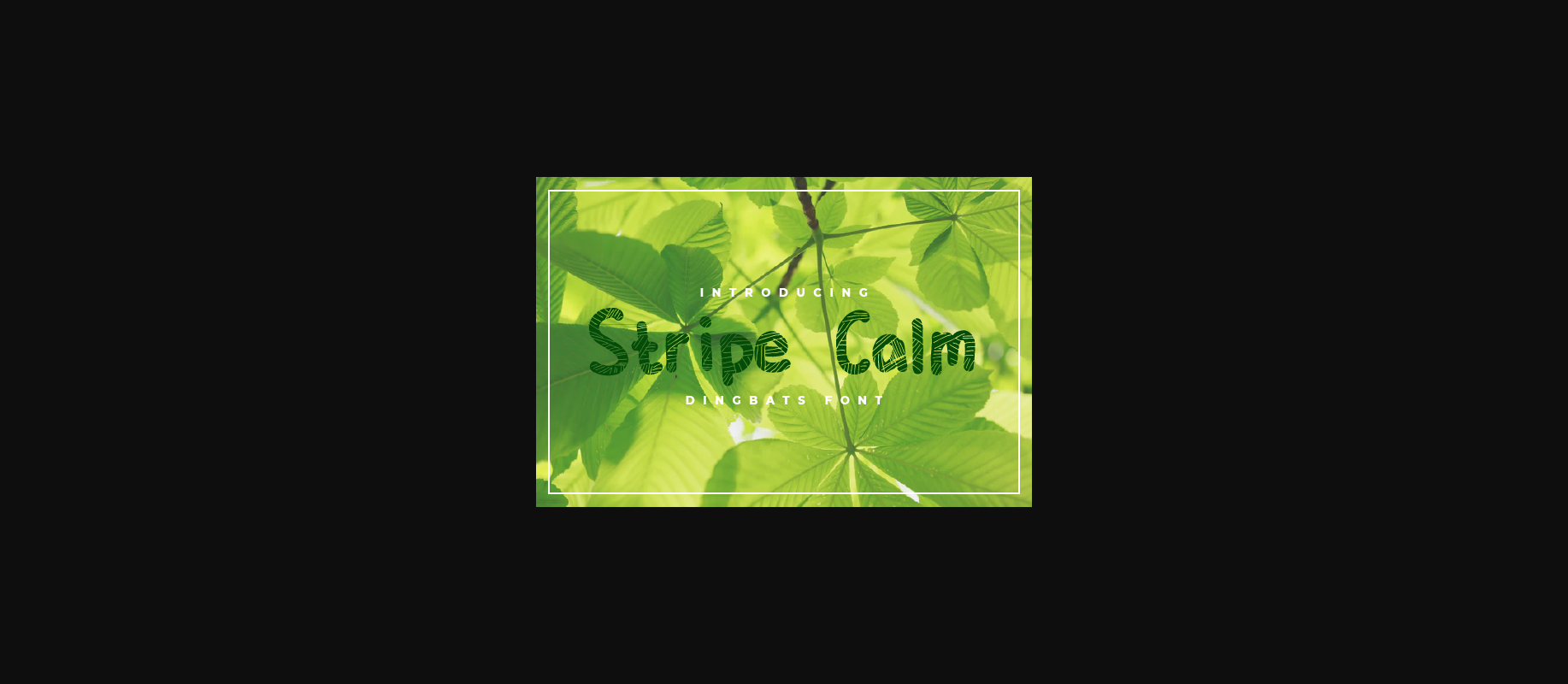
Stripe Calm Font
About Stripe Calm Font
Stripe Calm is a unique and interesting decorative font. Get creative with this original font and creative lovely and relaxing designs!